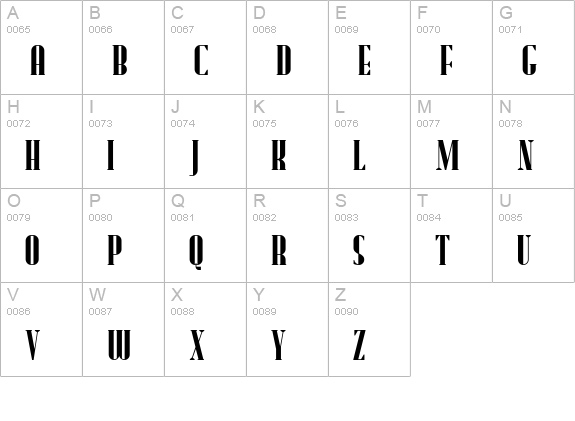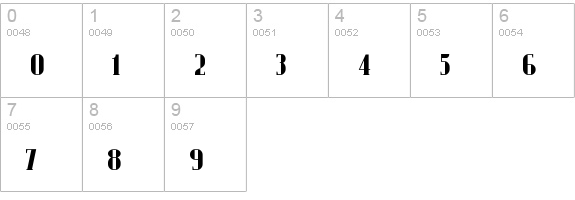
RadioRanch Font Details
Introducing RadioRanch, a captivating and versatile font that will transport you to the nostalgic charm of the old west. With its unique blend of boldness and elegance, this typeface captures the essence of vintage radio broadcasts and the rugged spirit of the ranching lifestyle. Featuring perfectly balanced letterforms and carefully crafted curves, RadioRanch exudes a sense of authenticity and timelessness. Its classic yet contemporary design makes it the perfect choice for a wide range of creative projects, from branding and logo design to advertising and editorial layouts. But what sets RadioRanch apart is not just its exceptional design, but also its accessibility. This incredible font is freely available to download at FontsMarket.com, allowing you to bring your creative visions to life without breaking the bank. Whether you're a professional designer or a passionate hobbyist, RadioRanch offers you the opportunity to add a touch of western flair to your projects with ease. With its extensive character set and multiple stylistic alternates, RadioRanch provides endless possibilities for customization. Let your imagination run wild as you experiment with different letter combinations and create unique typographic compositions that truly stand out. So, why settle for ordinary fonts when you can embrace the spirit of the wild west with RadioRanch? Download this remarkable typeface for free at FontsMarket.com and embark on a typographic adventure that will captivate and inspire. Let RadioRanch be your trusted companion on your creative journey, and watch as your designs flourish with the timeless charm of the old west.